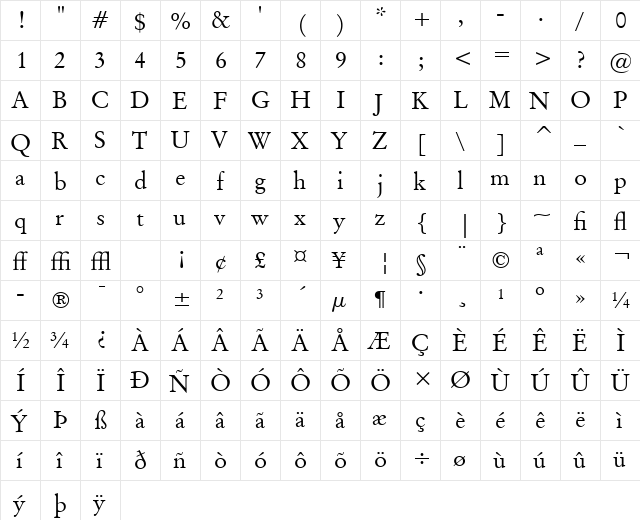
Baramond Roman
Design Context for Baramond Typeface
Baramond is a composed and adaptable typeface that performs quietly and consistently across a wide range of design contexts.